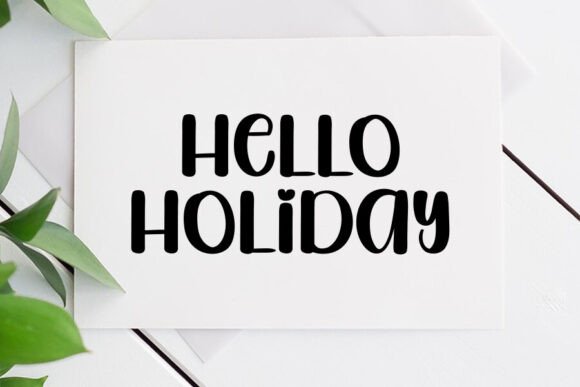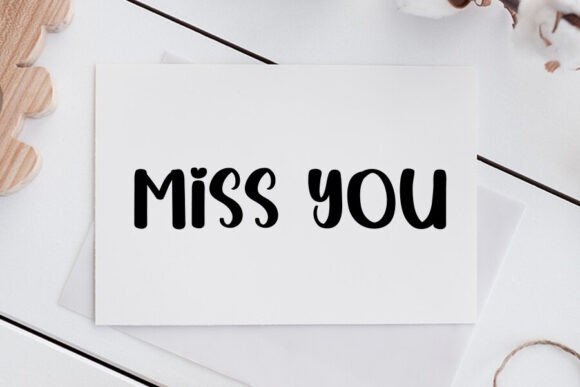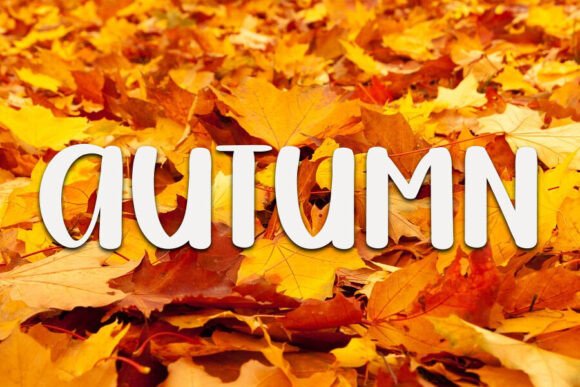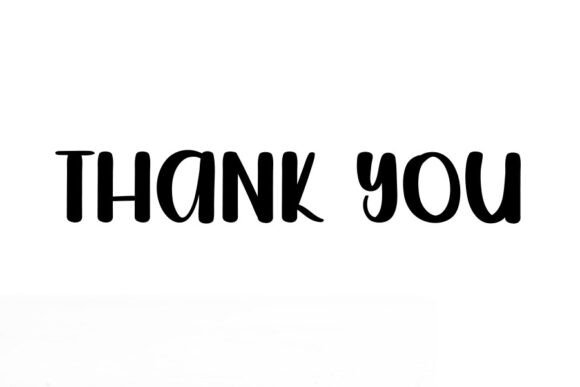
The High Jumping Font: A Simple yet Powerful Addition to Your Design Arsenal
I’ll never forget the time I was working on a project for a client who wanted a font that was both playful and elegant. I spent hours scouring the internet for the perfect match, but nothing seemed quite right. That was until I stumbled upon the High Jumping font. This simple handwritten font has since become a staple in my design toolkit, and I’m excited to share its awesomeness with you! 😊
I’ve had the pleasure of working with High Jumping on several projects, and here’s what I think:
• ✨ Versatility: This font is incredibly versatile and can be used for a wide range of applications, from greeting cards to headlines.
• ✅ Simple and Natural Feel: High Jumping adds a simple and natural feel to any project, making it perfect for designers who want to create a down-to-earth vibe.
• 💬 Easy to Read: The font is clear and easy to read, even at smaller sizes.
Of course, no font is perfect, and High Jumping has a few quirks:
• 🤔 Limited Extras: High Jumping doesn’t come with a ton of extra features or glyphs, but what it does offer is well-designed and easy to use.
• ⚠️ Not Suitable for Body Text: While High Jumping is great for headlines and titles, it’s not the best choice for body text due to its handwritten nature.
The Story Behind High Jumping
While I couldn’t find any information on the exact origins of High Jumping, I like to imagine that it was created by a designer who wanted to craft a font that was both simple and elegant. Perhaps they were inspired by the fluid movements of a high jumper, and wanted to capture that sense of freedom and joy in their design. Whatever the story, High Jumping has become a beloved font among designers and crafters alike.
What is High Jumping font best used for? High Jumping is perfect for headlines, titles, and short text passages where you want to add a simple and natural feel to your design.
What are some common industries that use High Jumping? High Jumping is a versatile font that can be used across various industries, including design, crafting, education, and more.